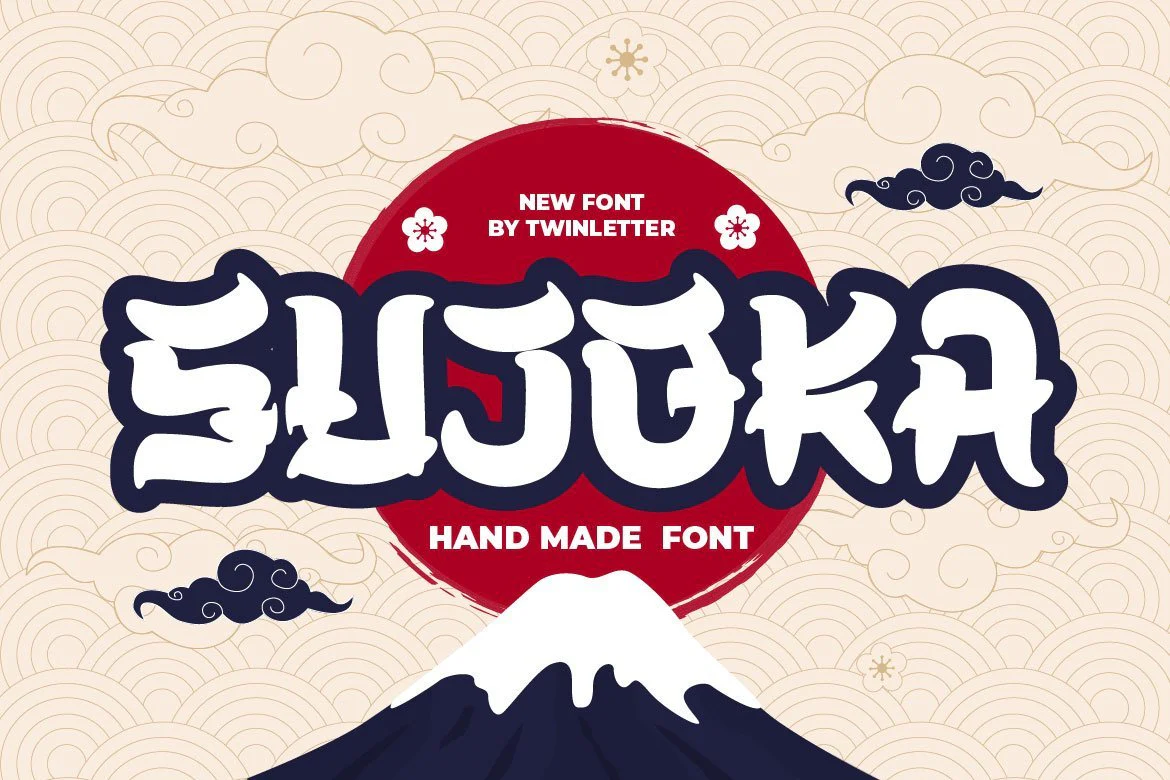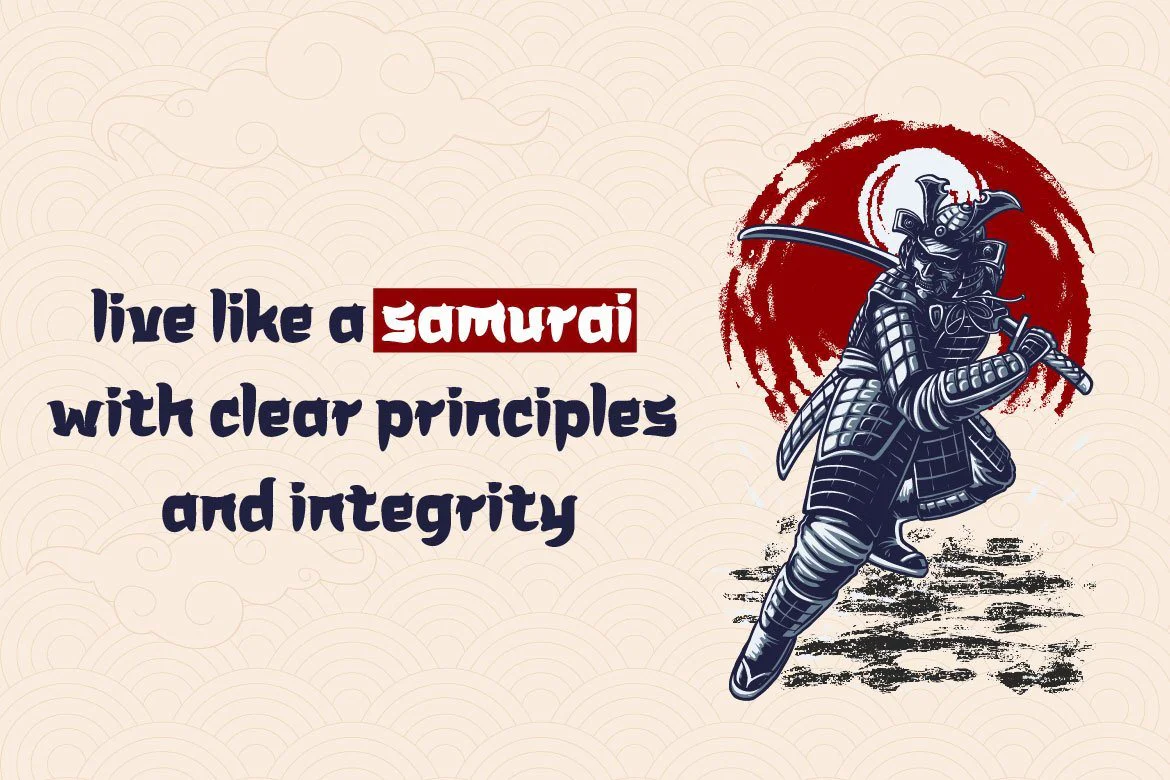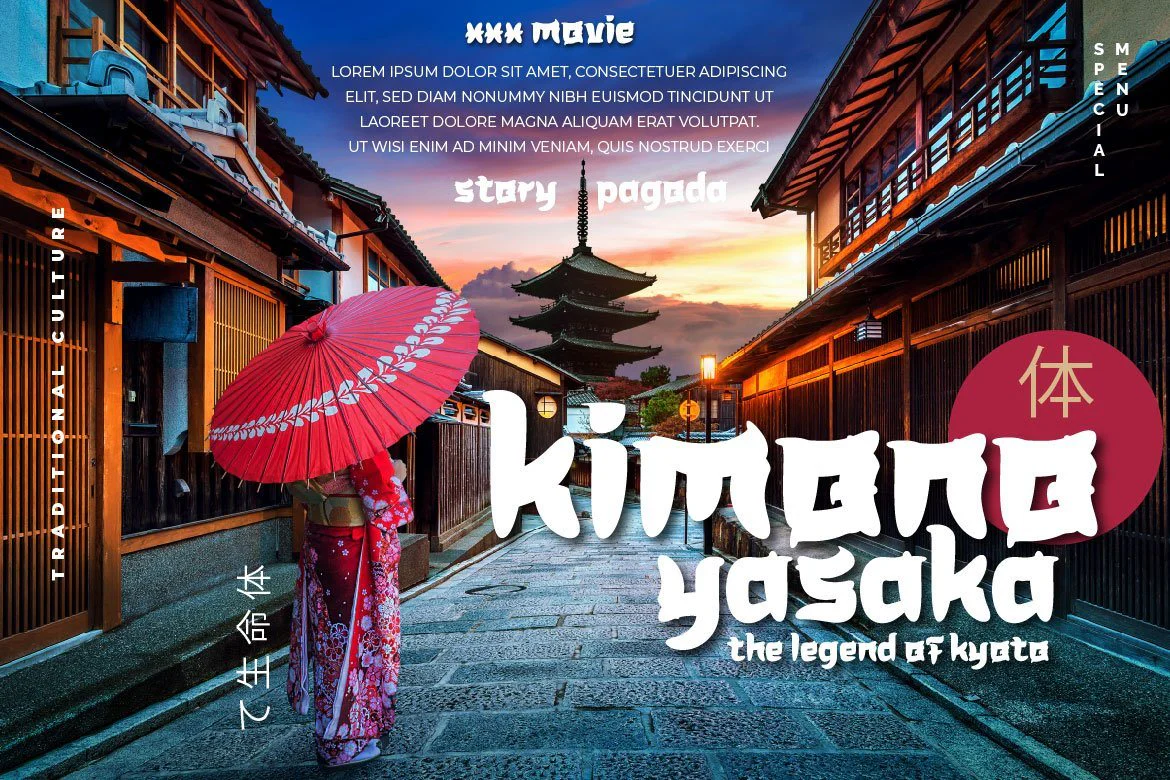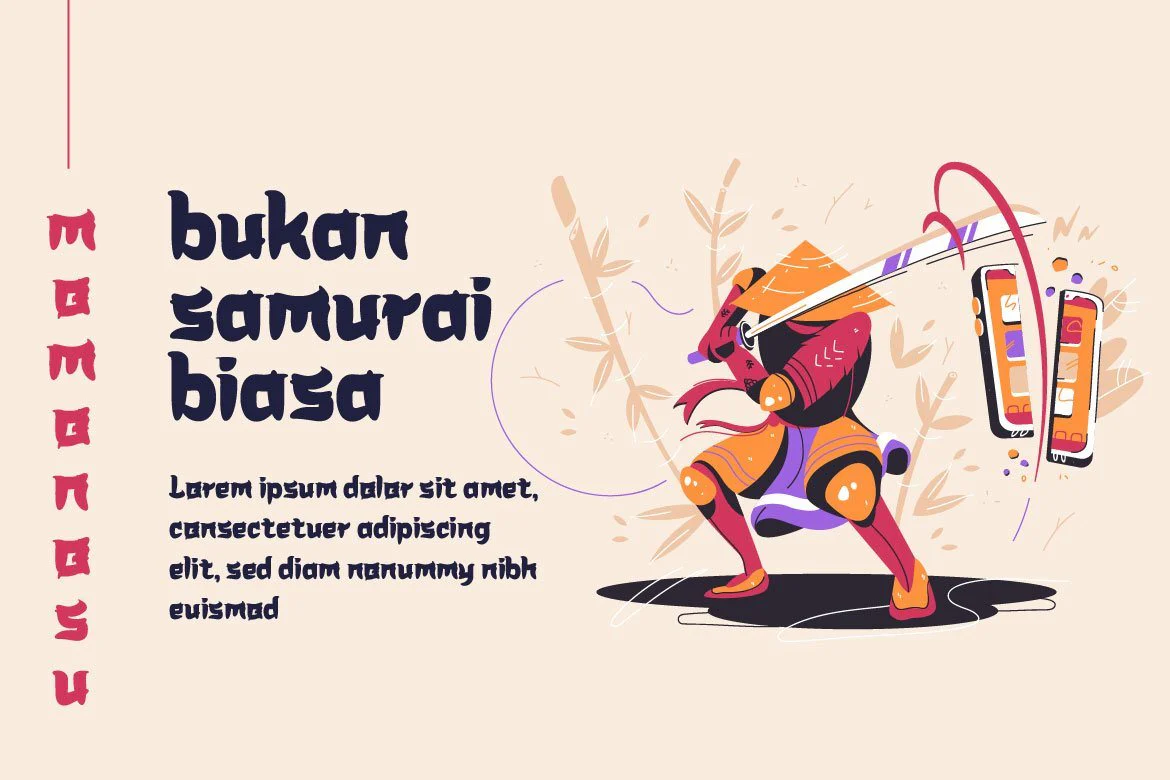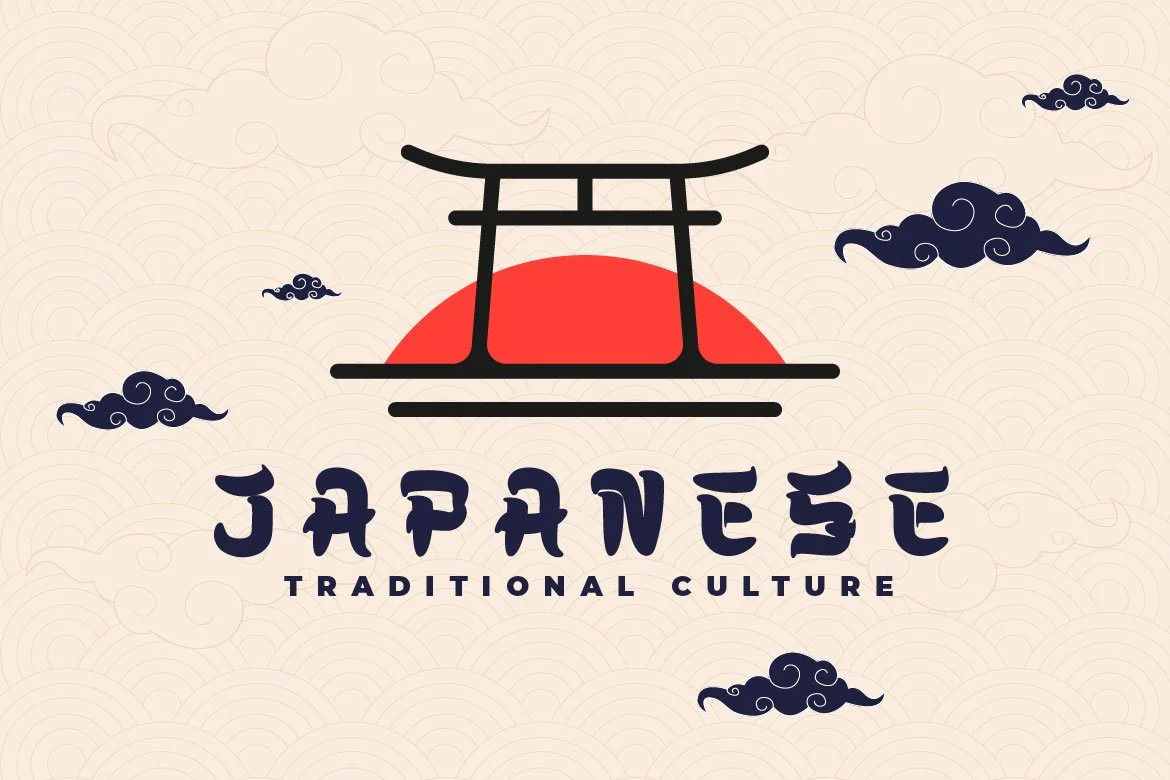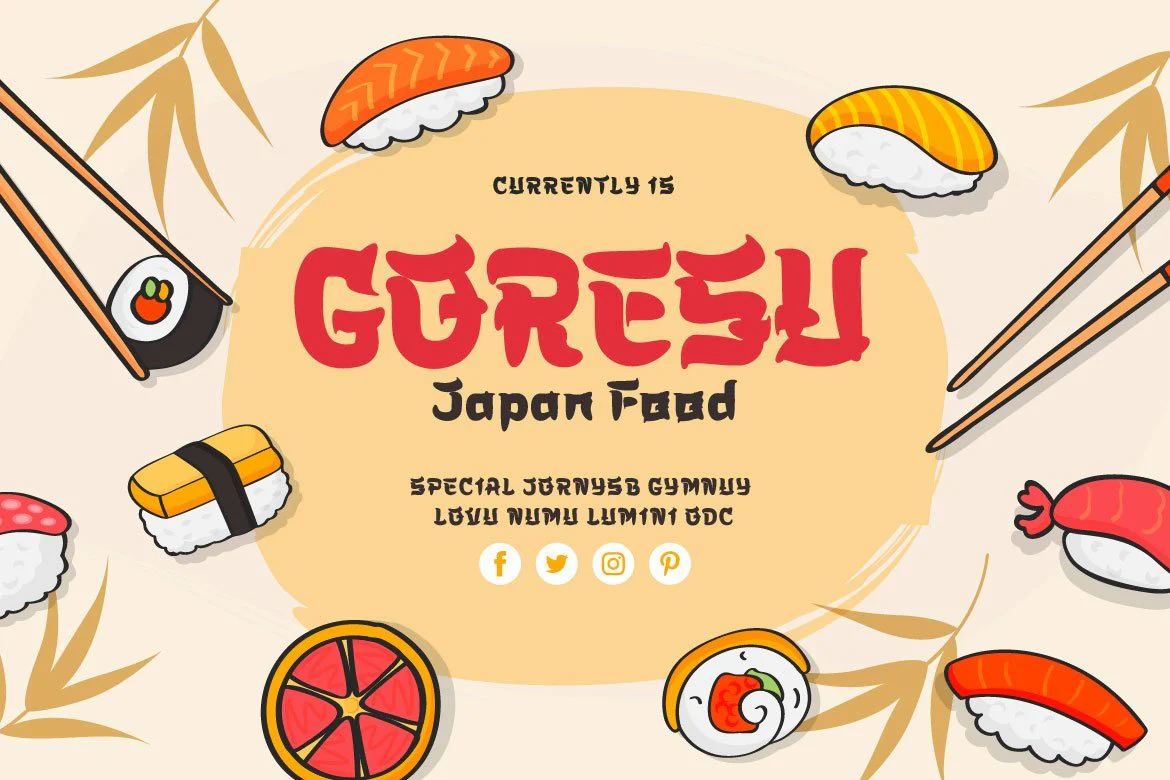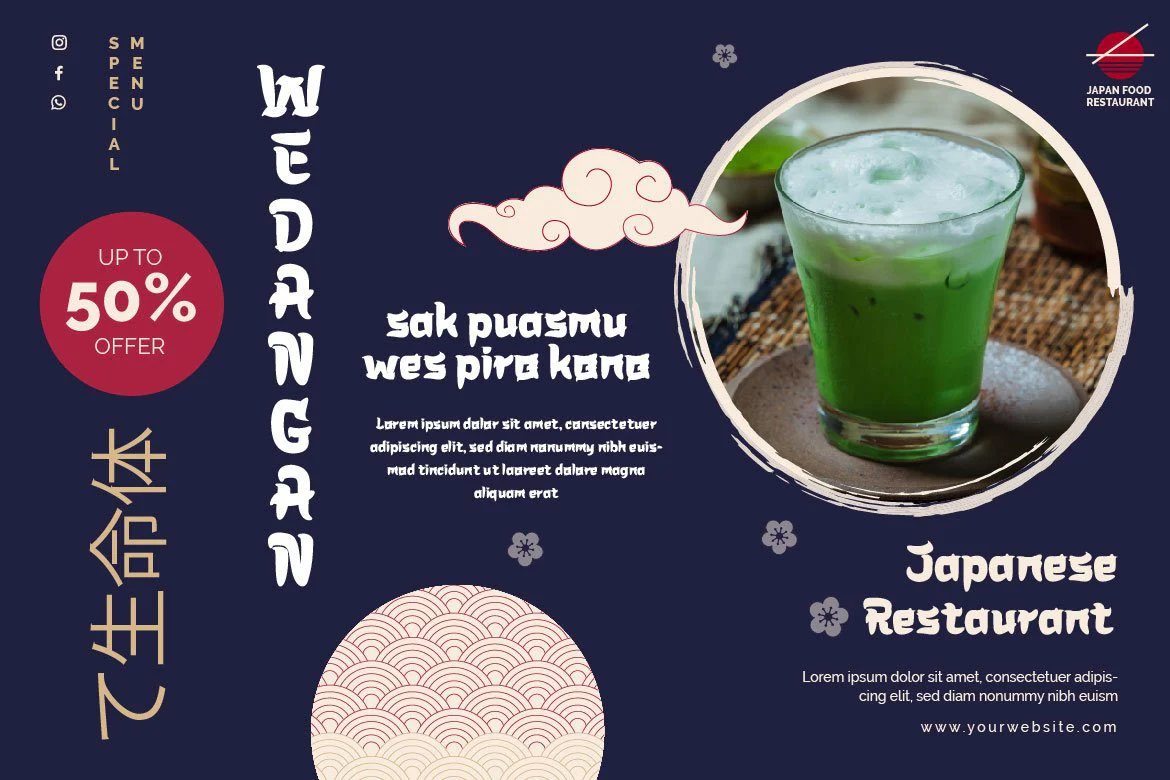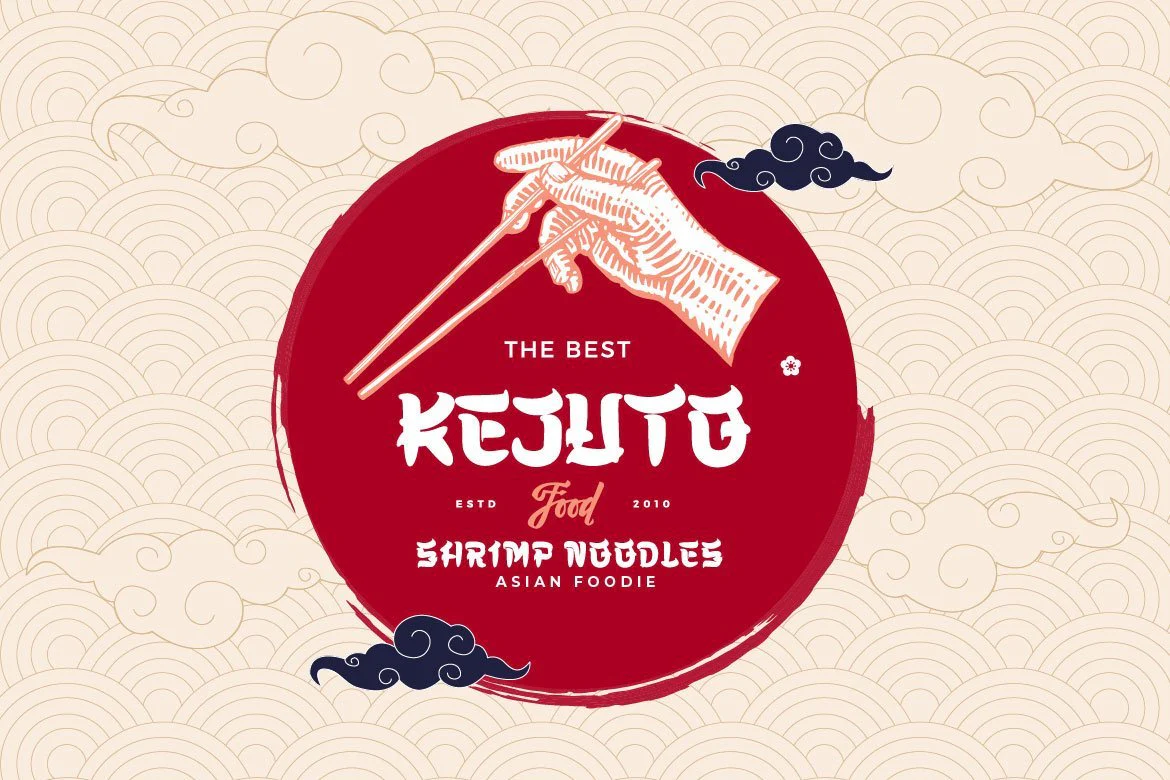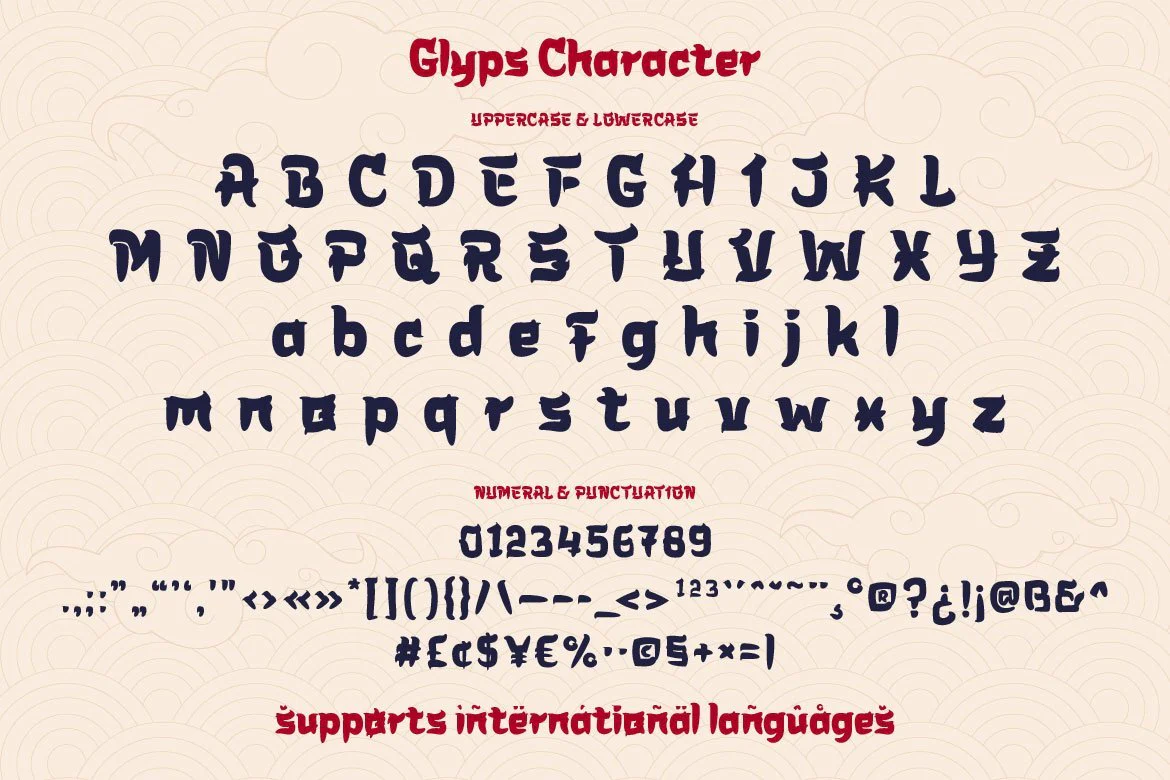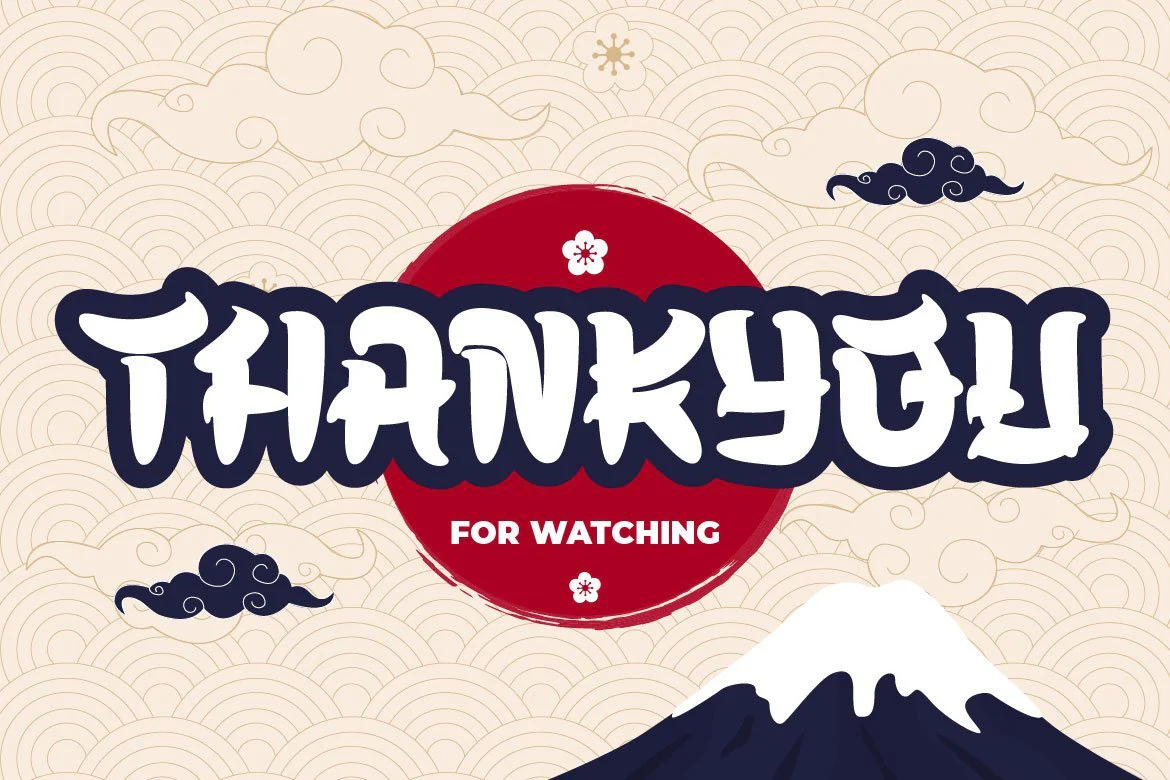
SUJOKA Japanese Style Font
Sujoka is a distinctive and elegant font with a Japanese flavor that we created.
This typeface will suit your demands for a variety of branding projects that require a distinct, distinctive, and appealing design. Use this typeface to respond to your current demands.
Logotypes, food banners, branding, banners, posters, movie titles, book titles, quotes, and more may all benefit from this font.
Of course, using this font in your various design projects will make them excellent and outstanding; many viewers are drawn to the striking and unusual graphic display.
Start utilizing this typeface in your projects to make them stand out.
Sujoka is a distinctive and elegant font with a Japanese flavor that we created.
This typeface will suit your demands for a variety of branding projects that require a distinct, distinctive, and appealing design. Use this typeface to respond to your current demands.
Logotypes, food banners, branding, banners, posters, movie titles, book titles, quotes, and more may all benefit from this font.
Of course, using this font in your various design projects will make them excellent and outstanding; many viewers are drawn to the striking and unusual graphic display.
Start utilizing this typeface in your projects to make them stand out.